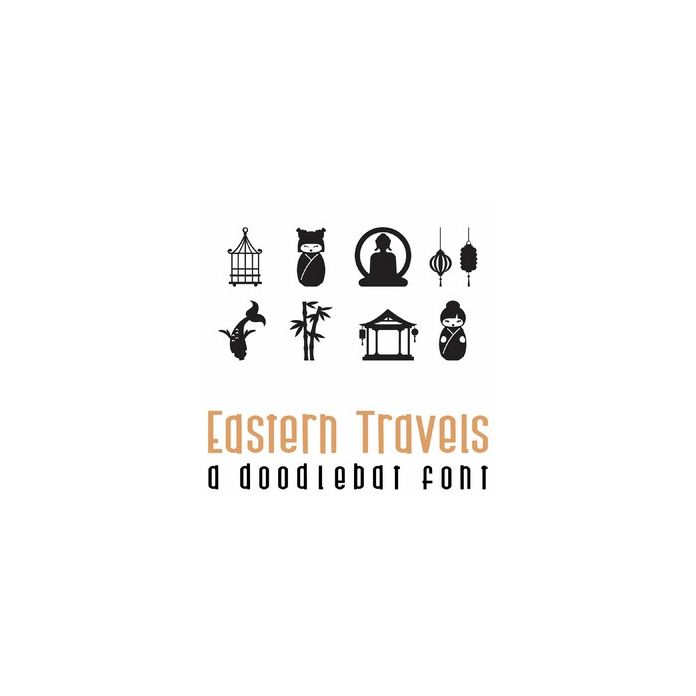
This fun doodlebat font features 26 images with an Asian influence. Perfect for cards, gifts, decor, crafts, scrap book pages, planner stickers and more!